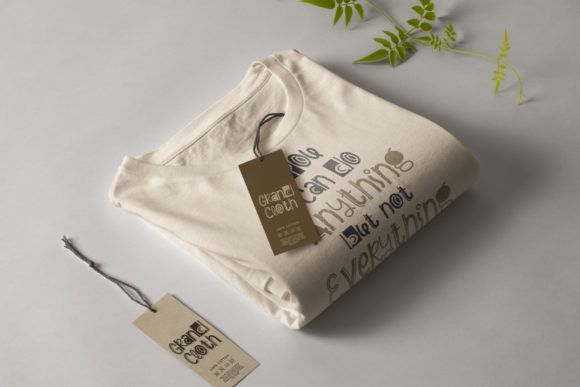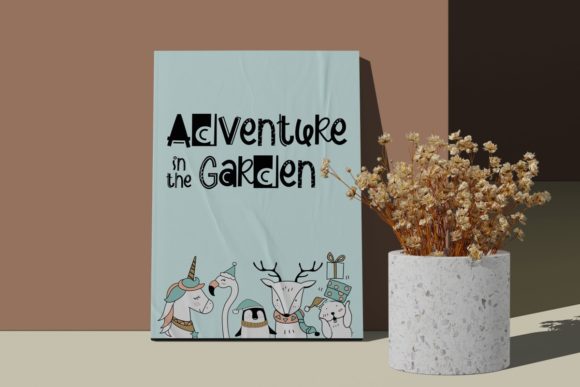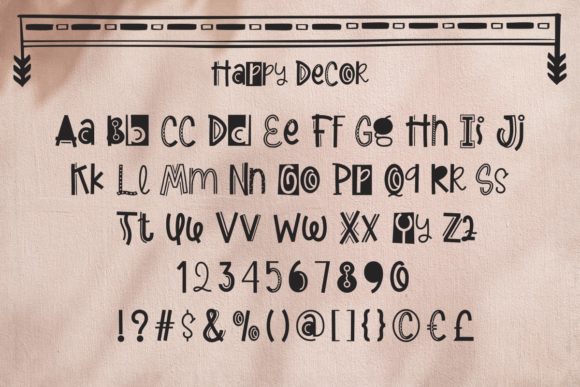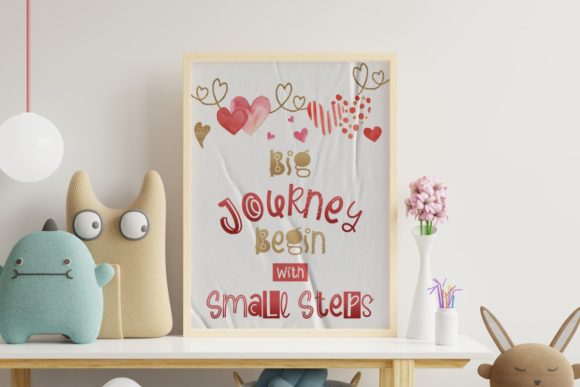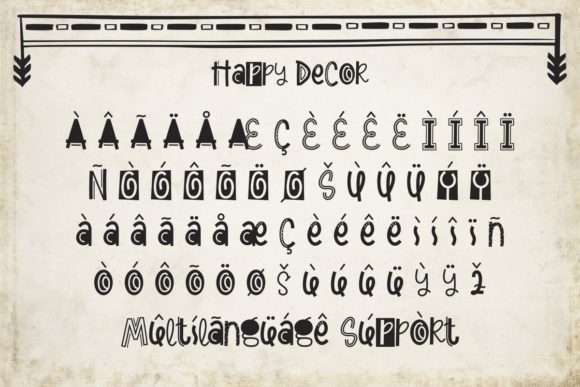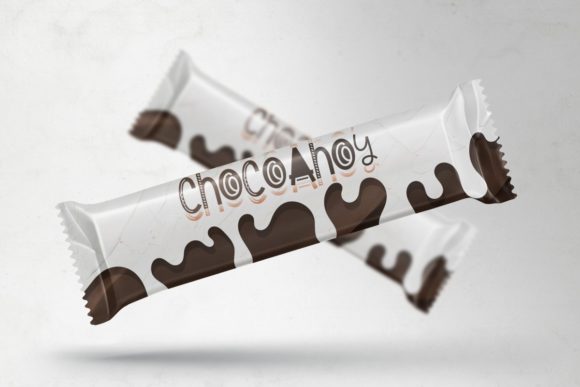
Introduction to Happy Decor Font
Happy Decor is a playful decorative font with crafting and DIY themes.
This is a unique-lettered font with fun characters It embodies playfulness and authenticity and is the perfect choice for any handicrafts, childrenโs activities, or school projects.
Key Features of Happy Decor Font